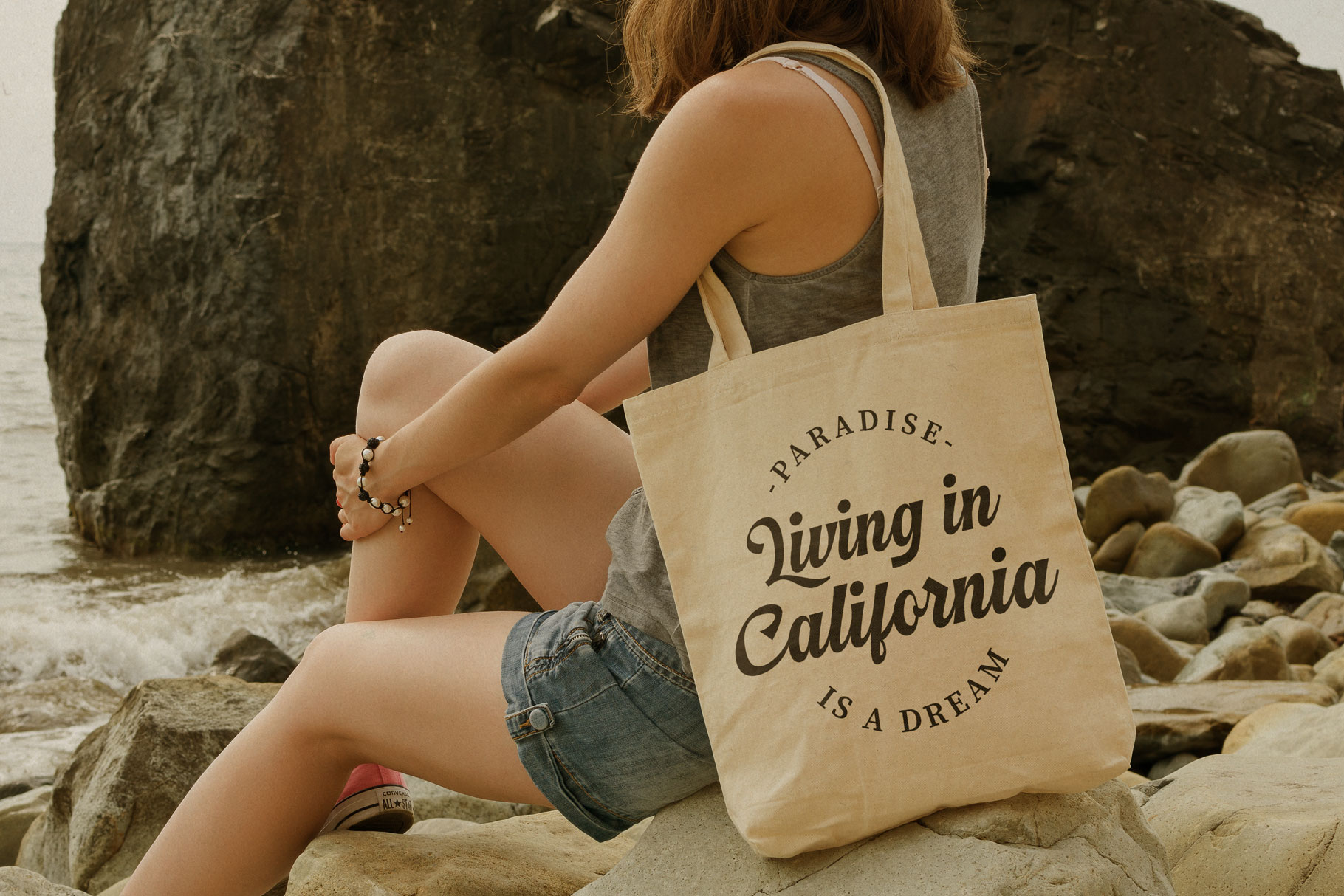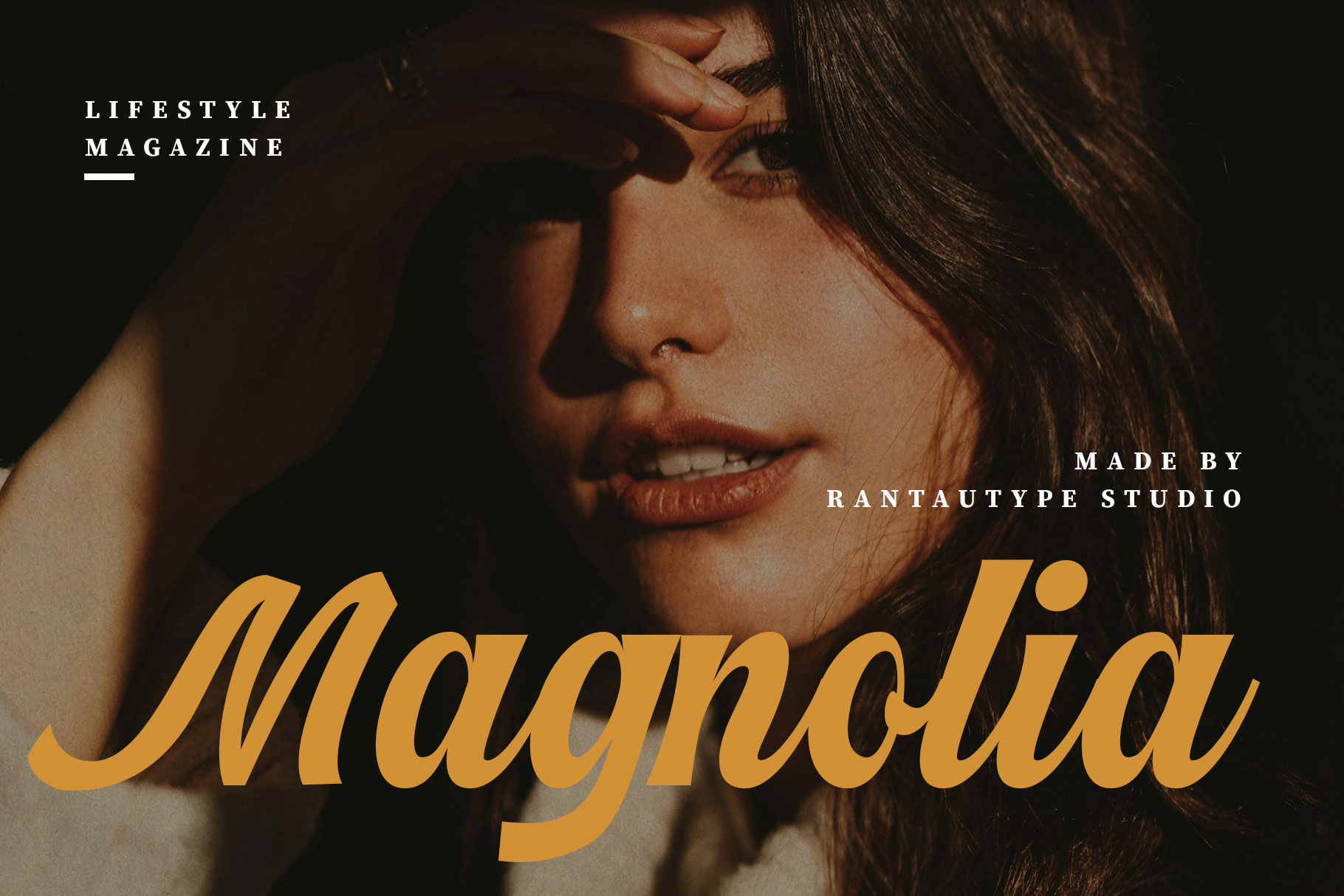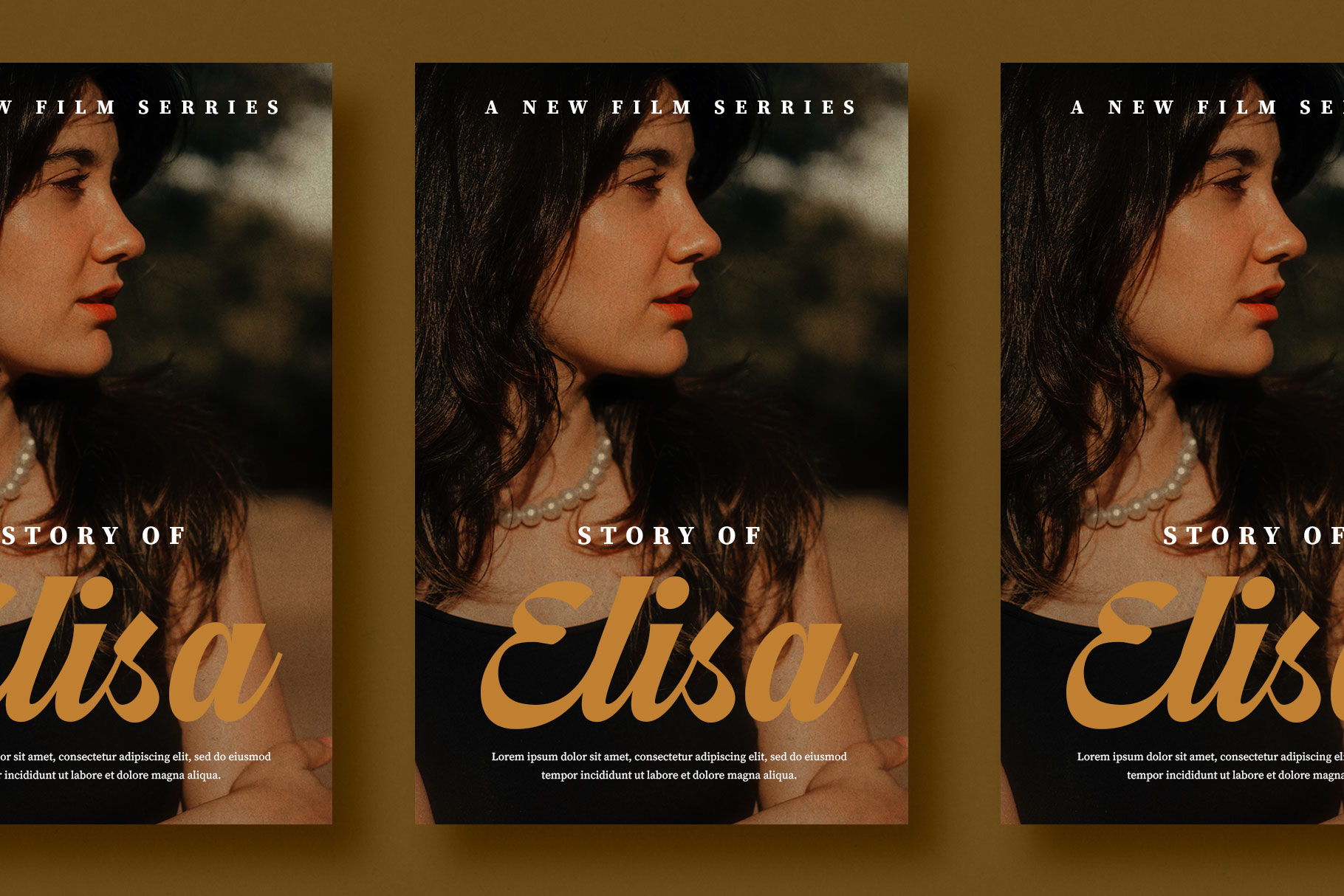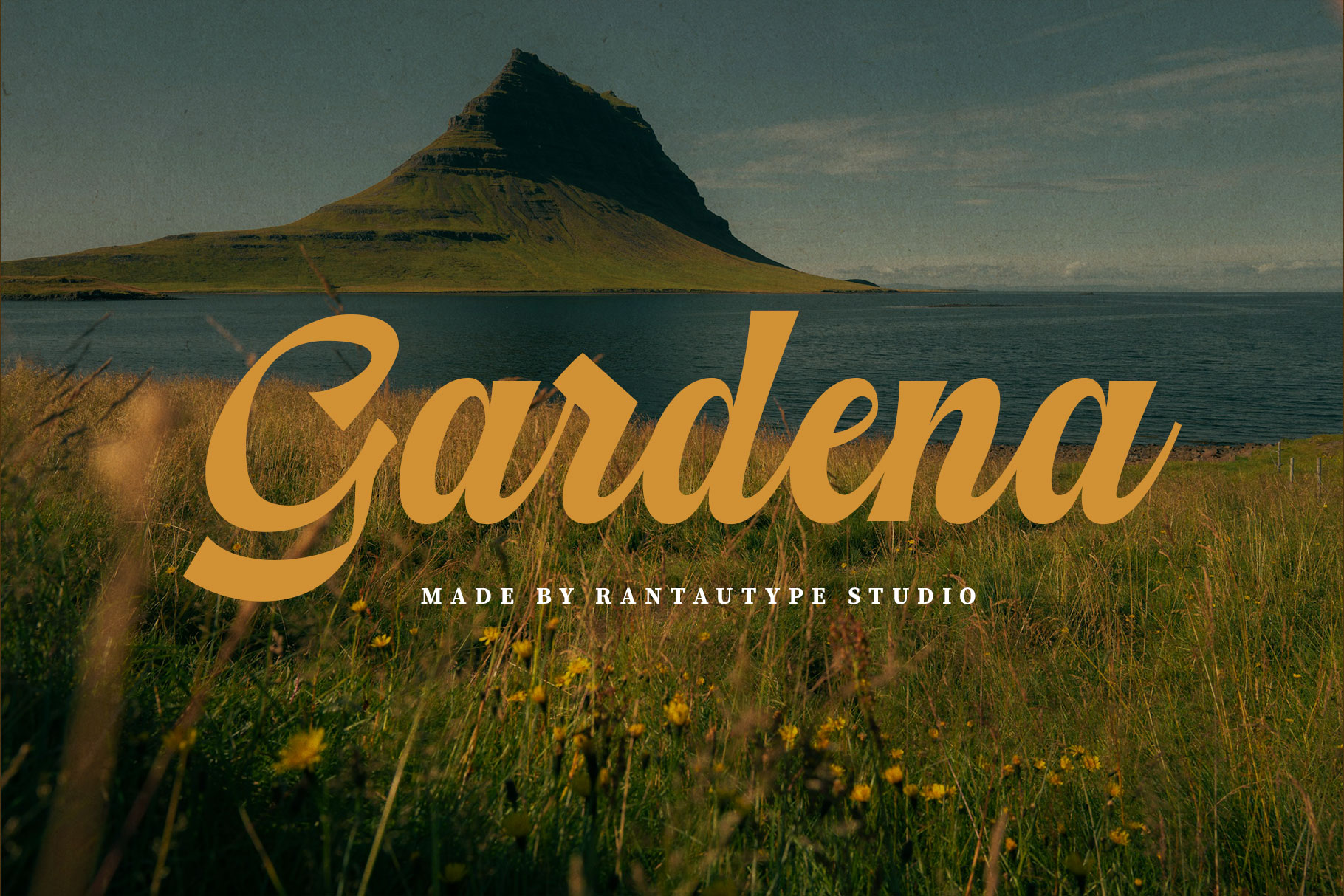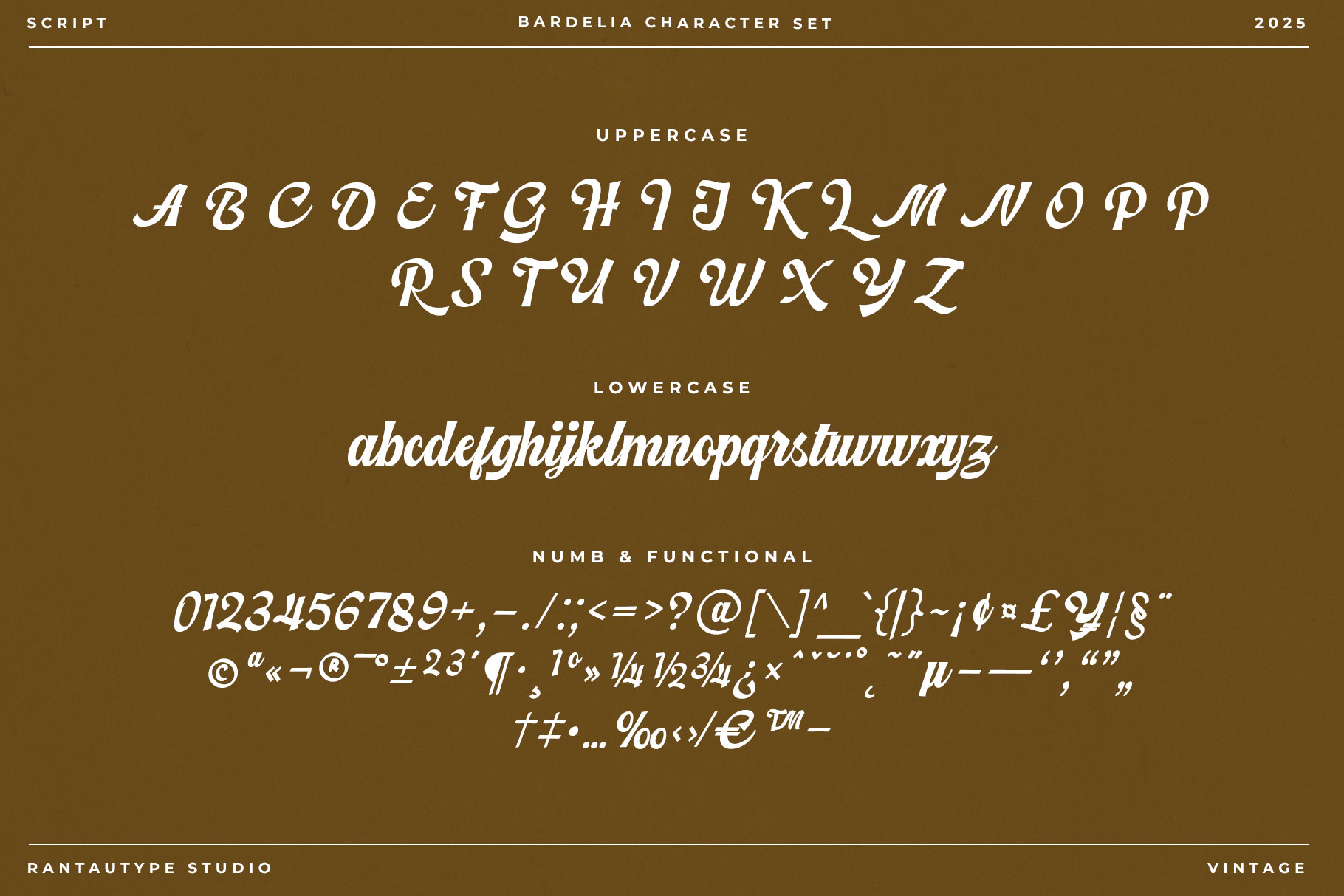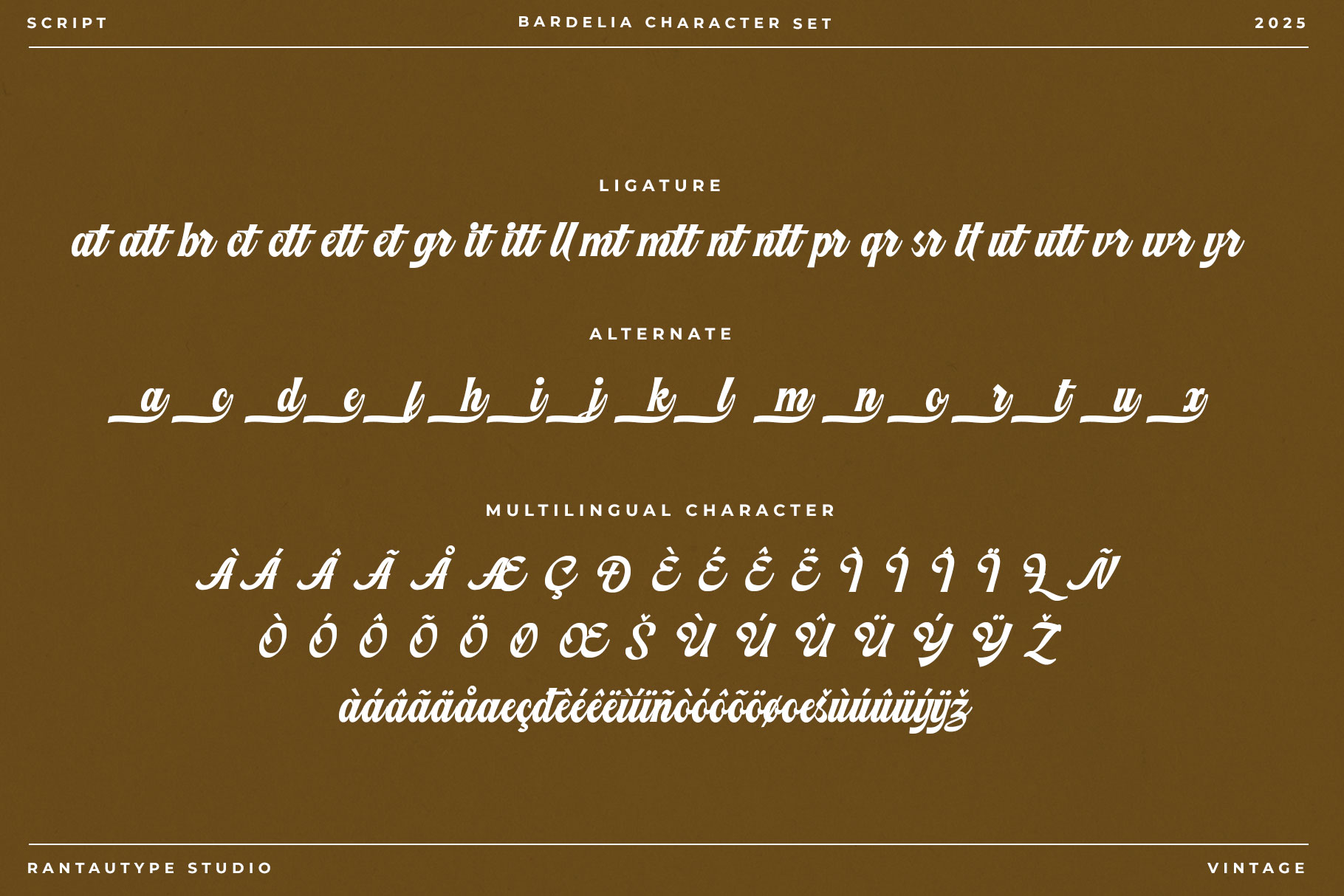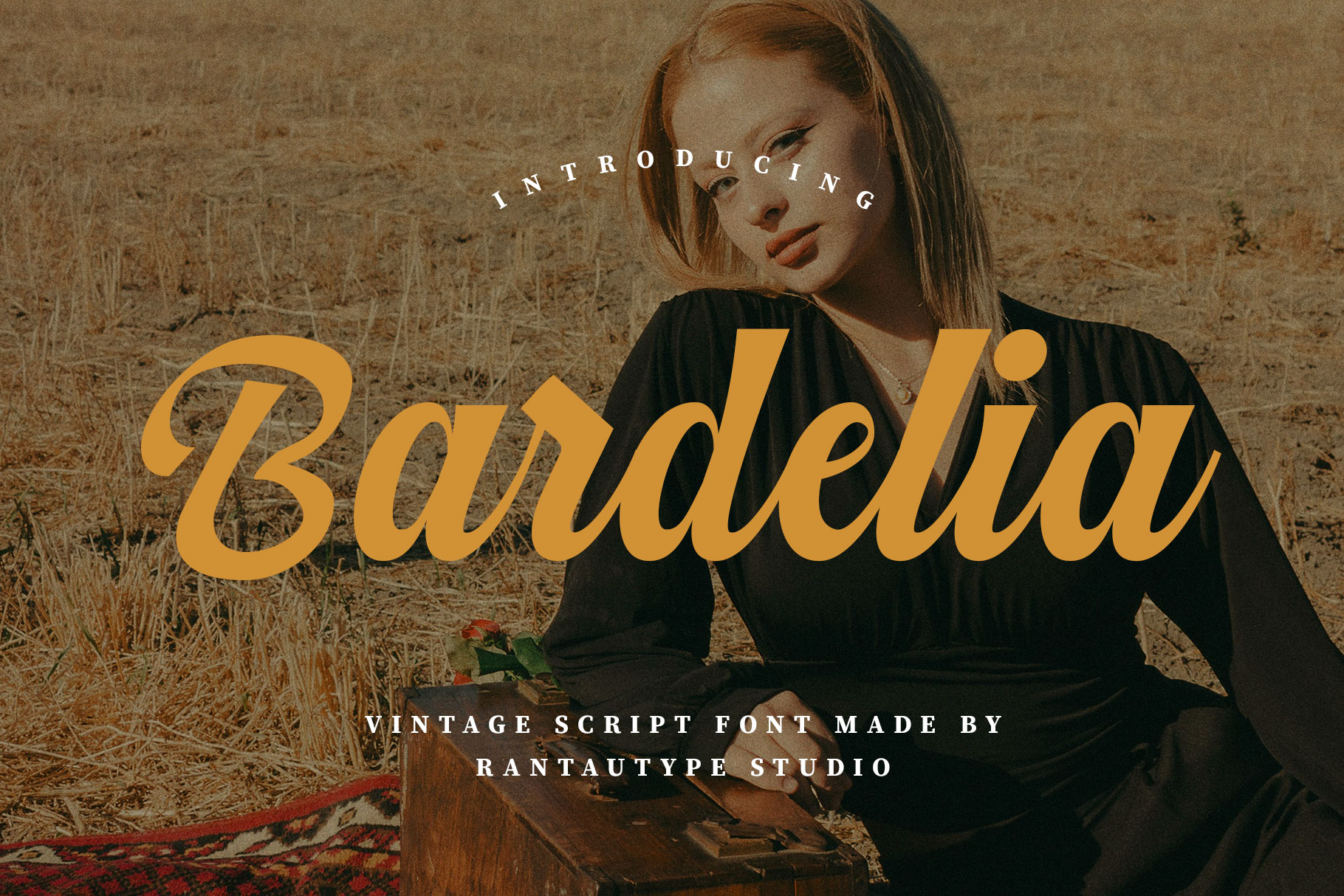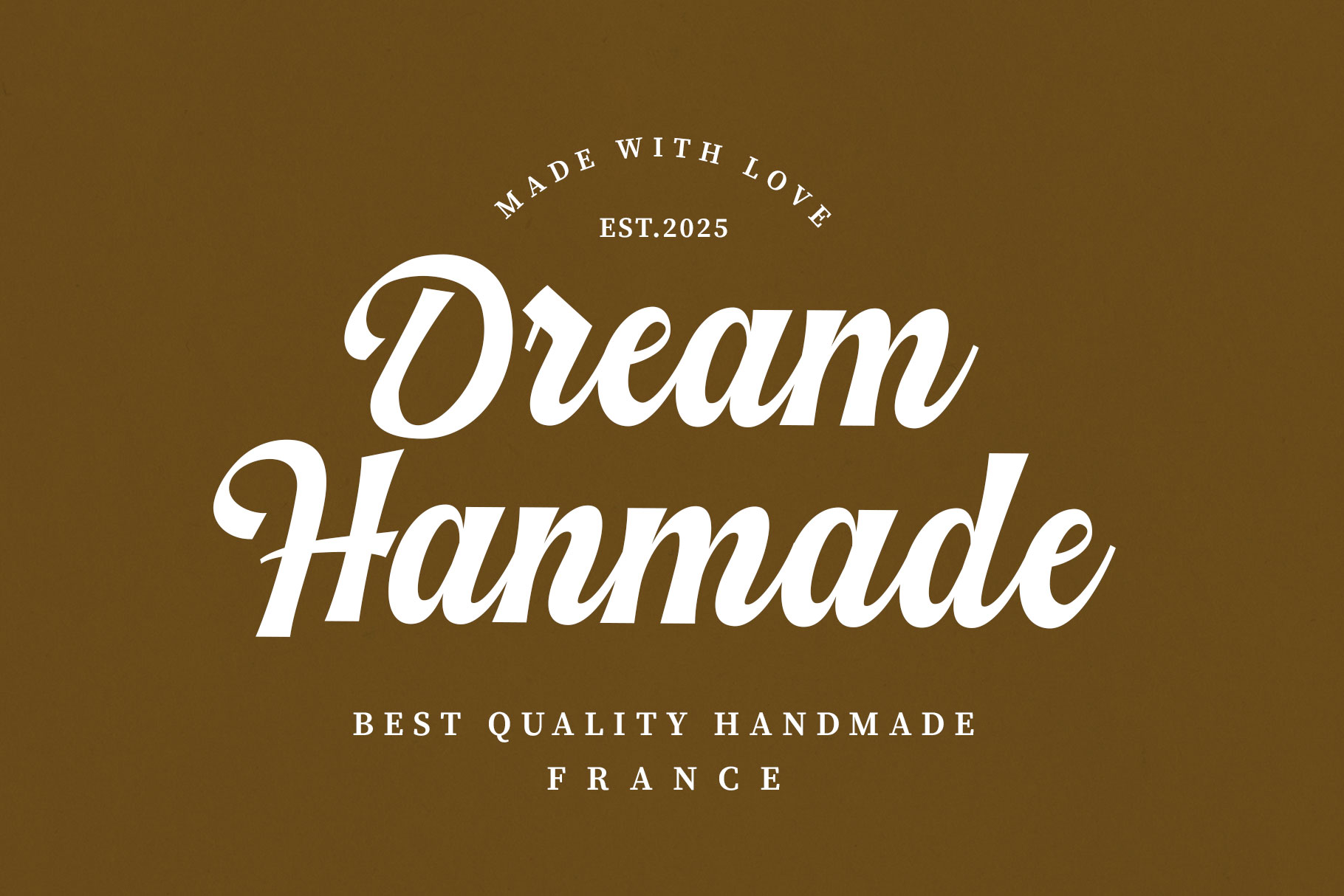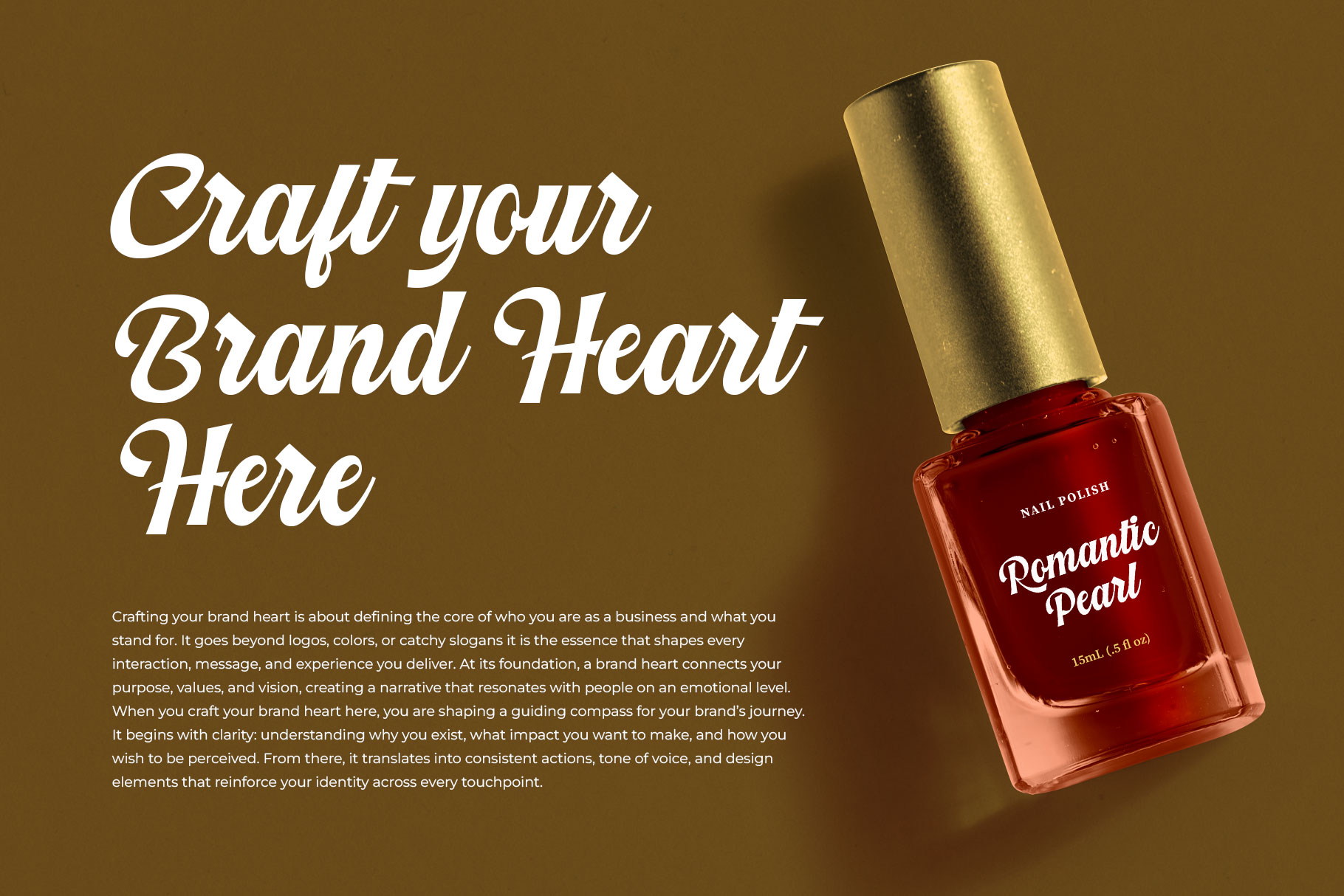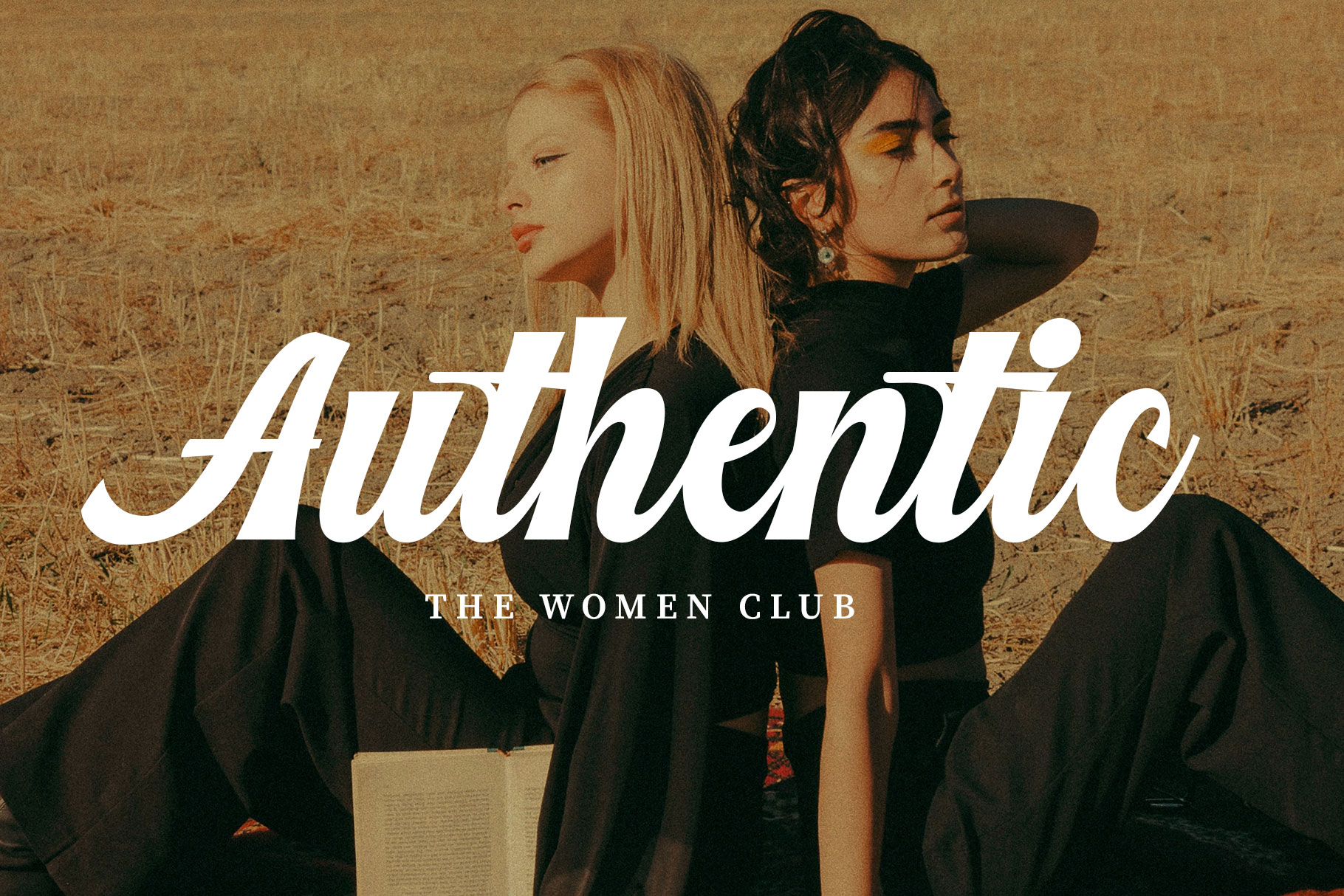
Bardelia Vintage Script Font
Bardelia is vintage script font made by rantautype studio with nostalgic look. Bardelia come with contrast bold character to make a nostalgic look. Grecina is a perfectly choice for any creative endeavor, creating, modern, lifestyle design such as logotype, title, cover, branding, invitations, wedding designs, display and magazine, social media posts, advertisements, printed quotes, product packaging, corporate brand, product designs, labels, photography, watermarks, special events and any other project with retro touch.